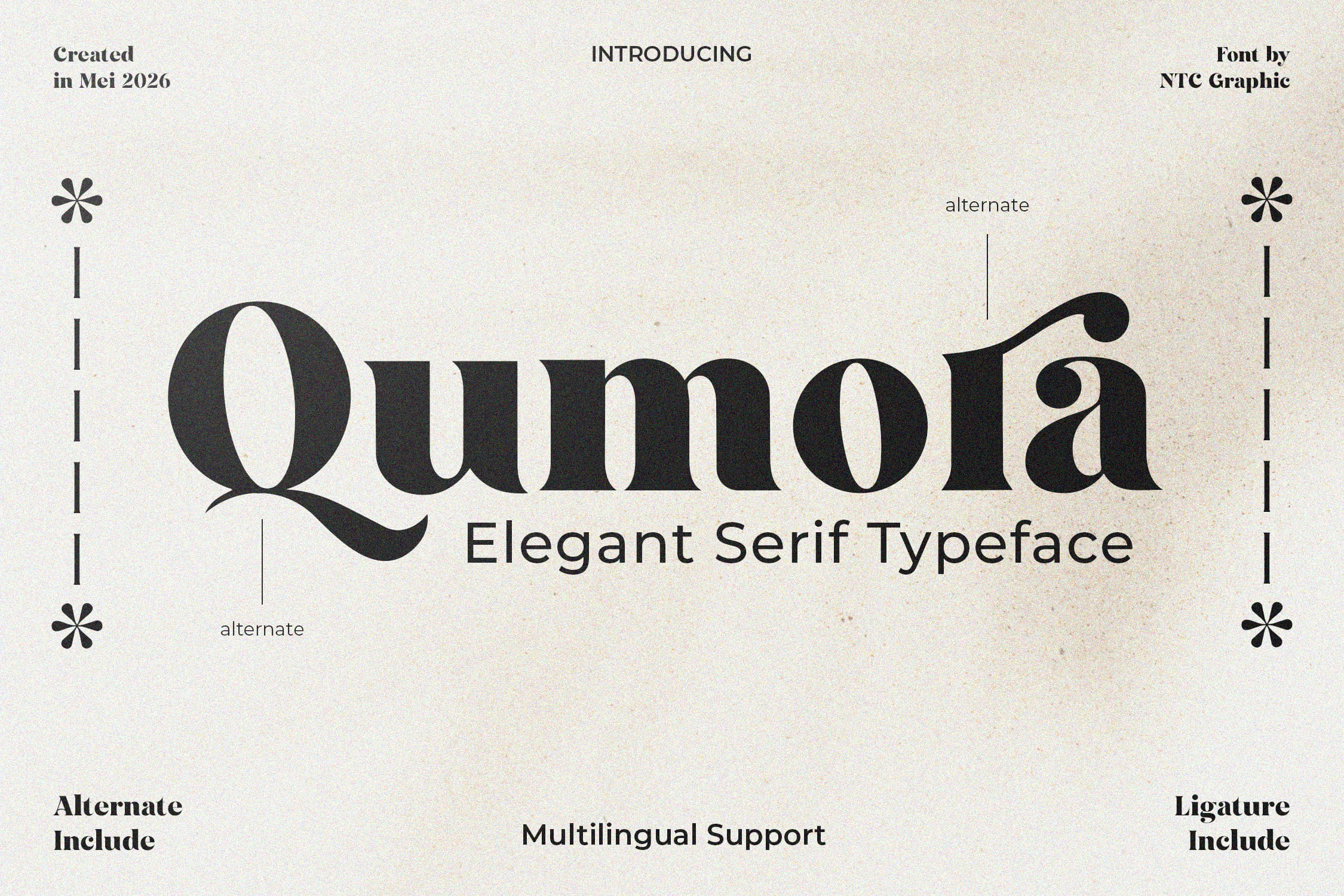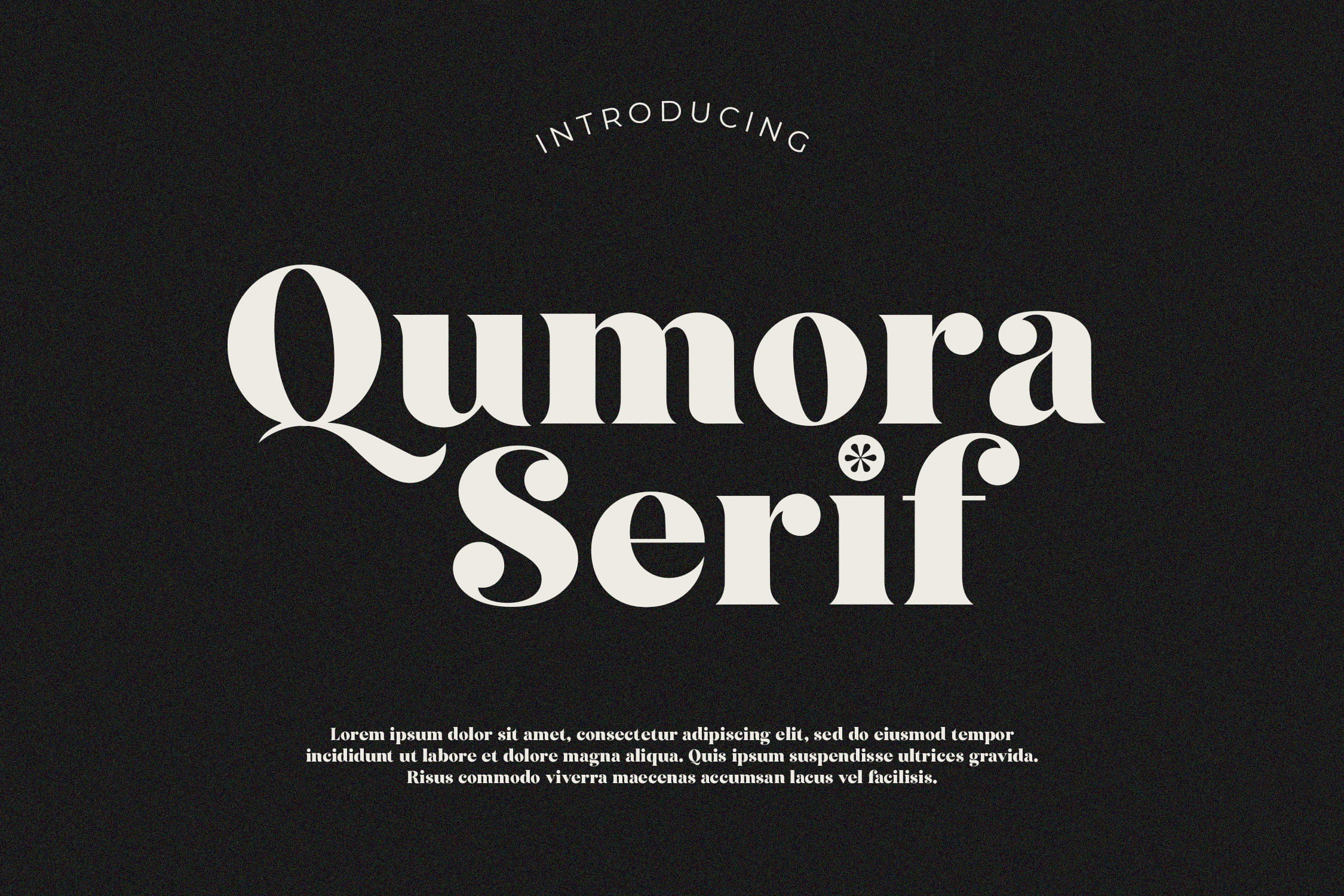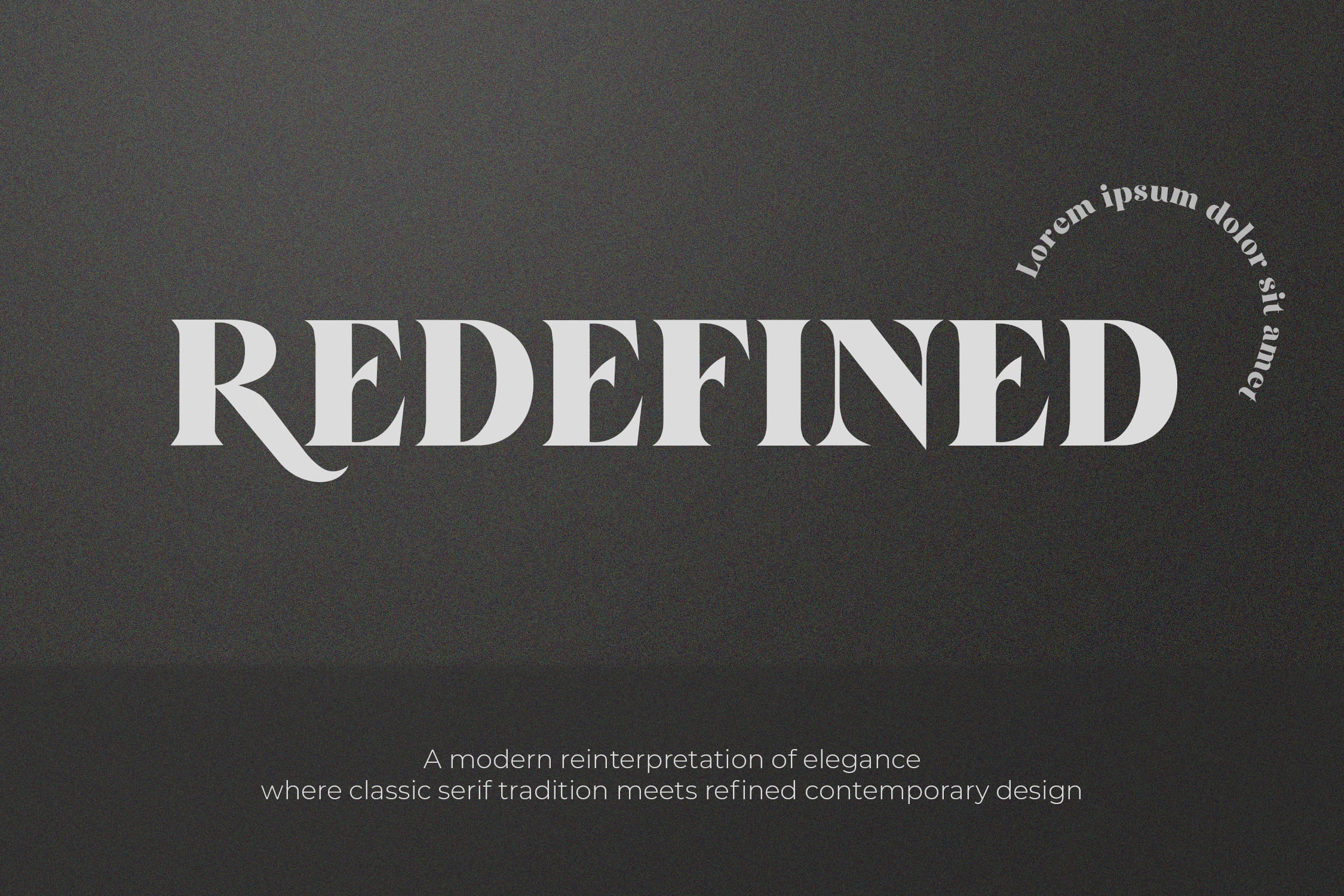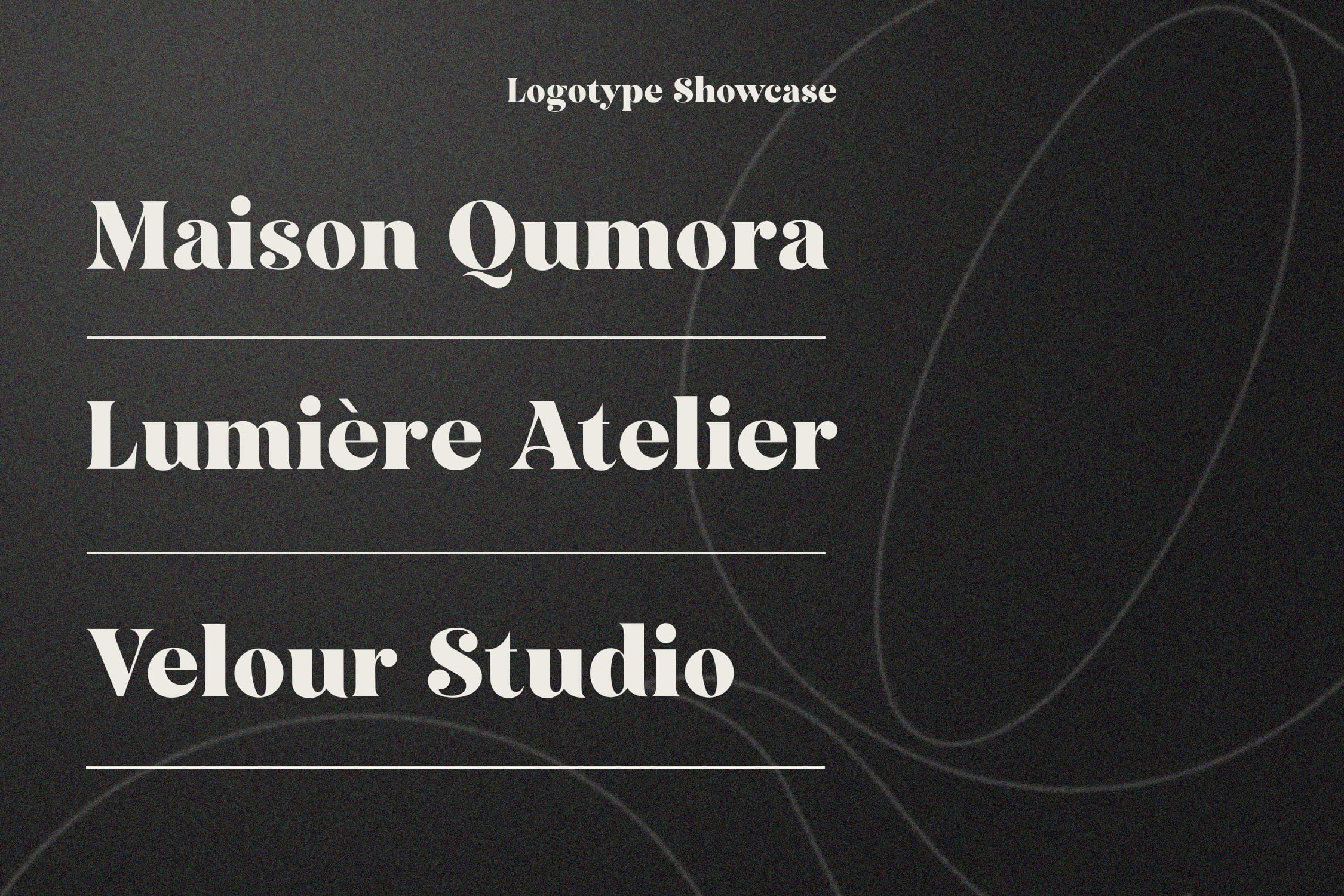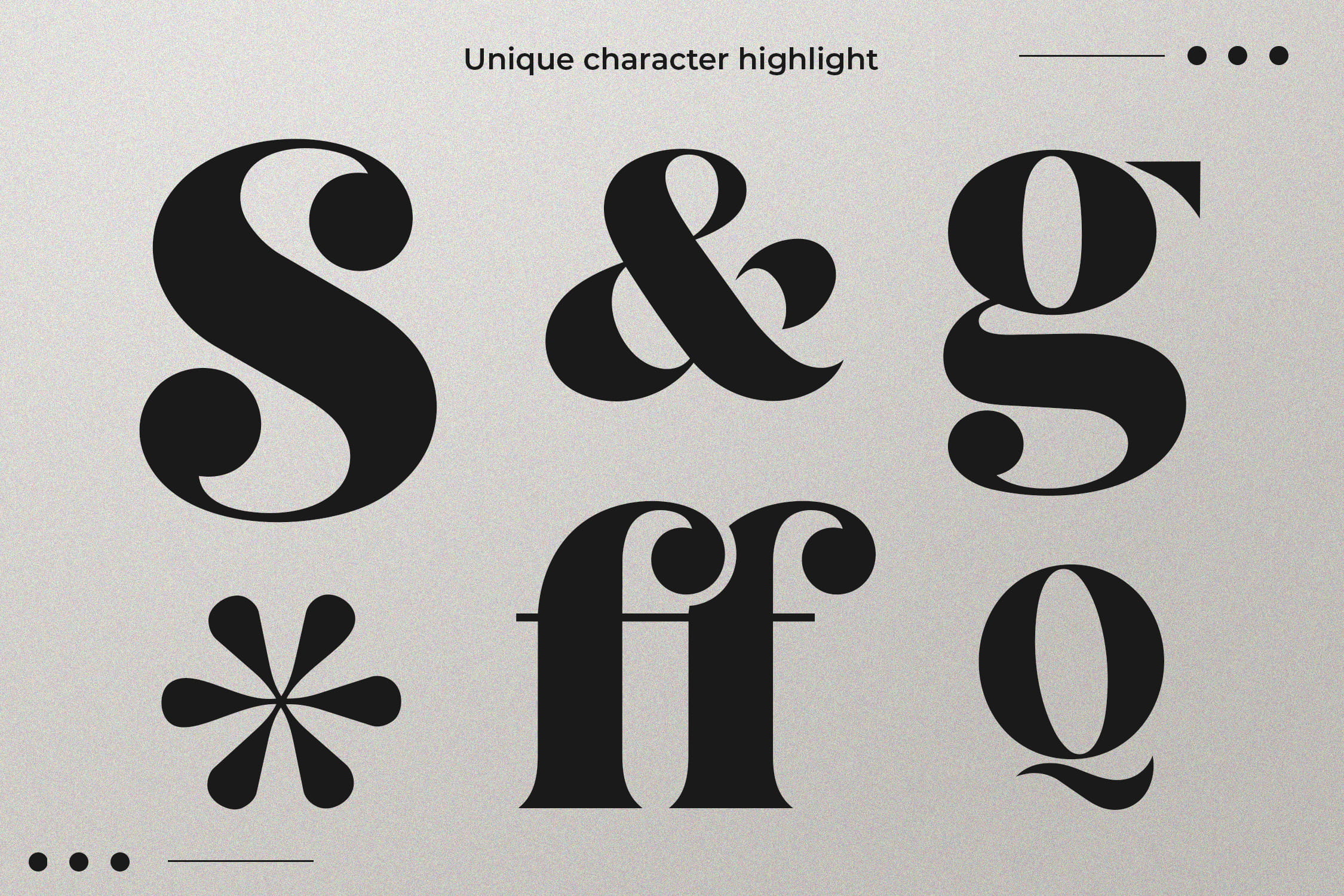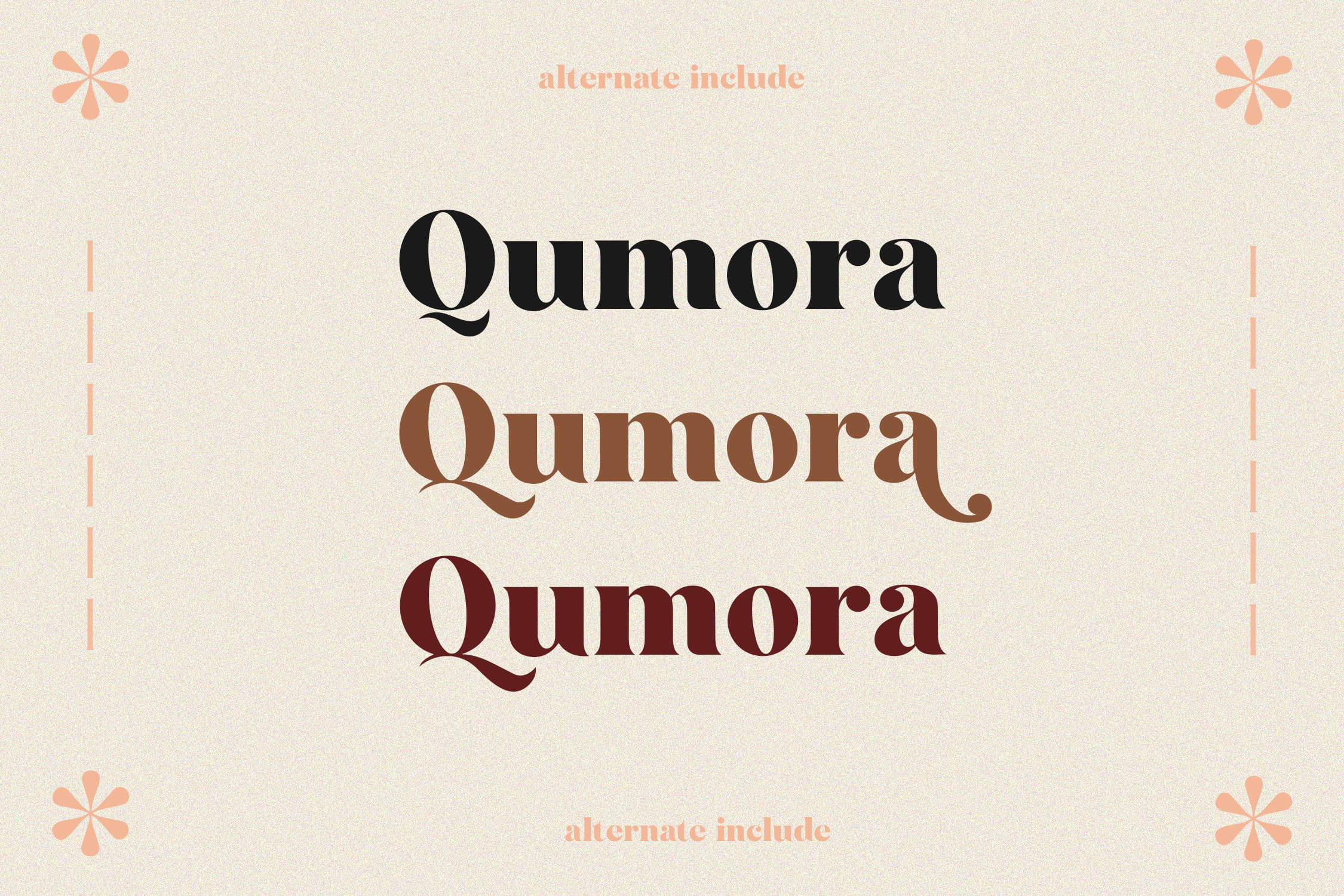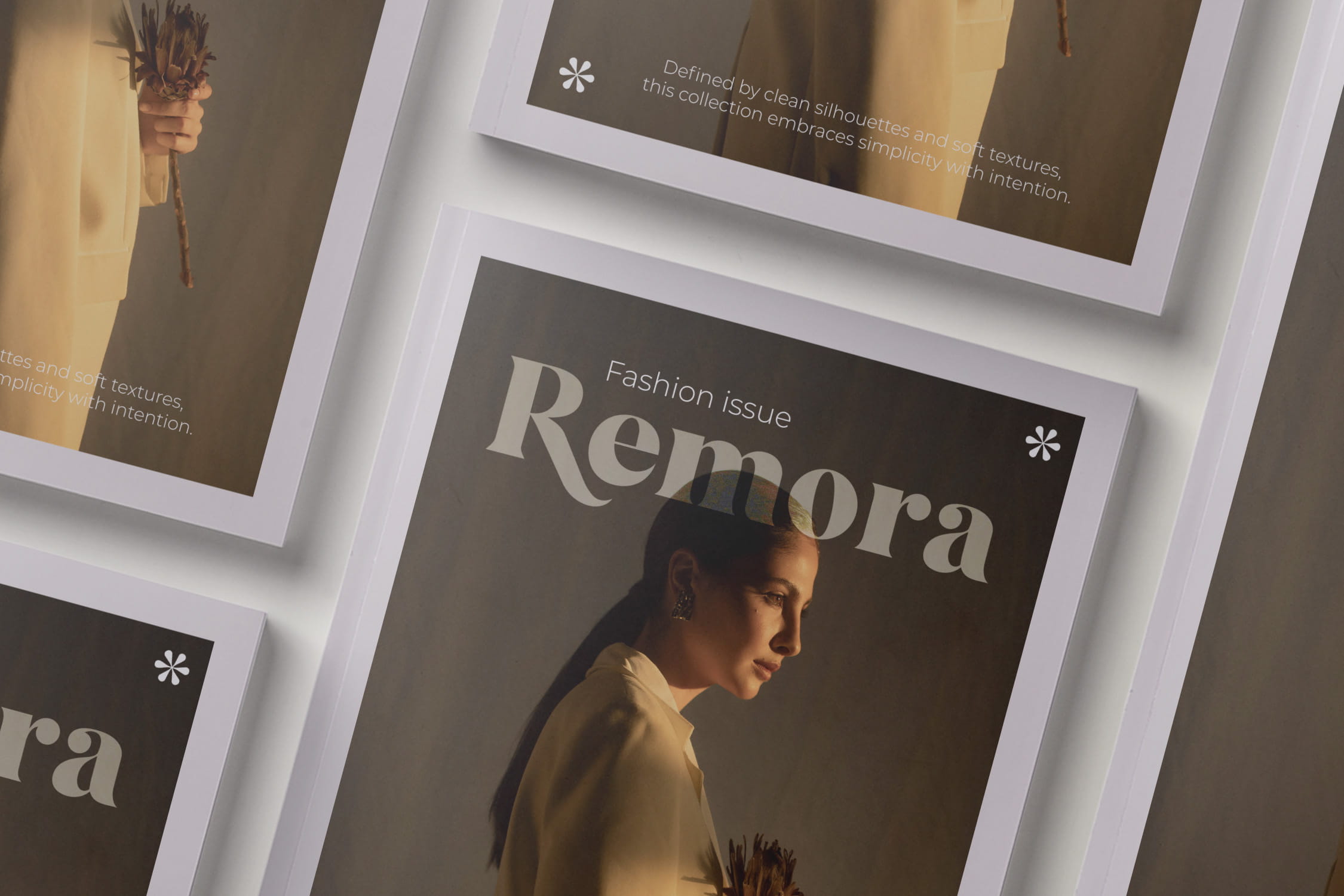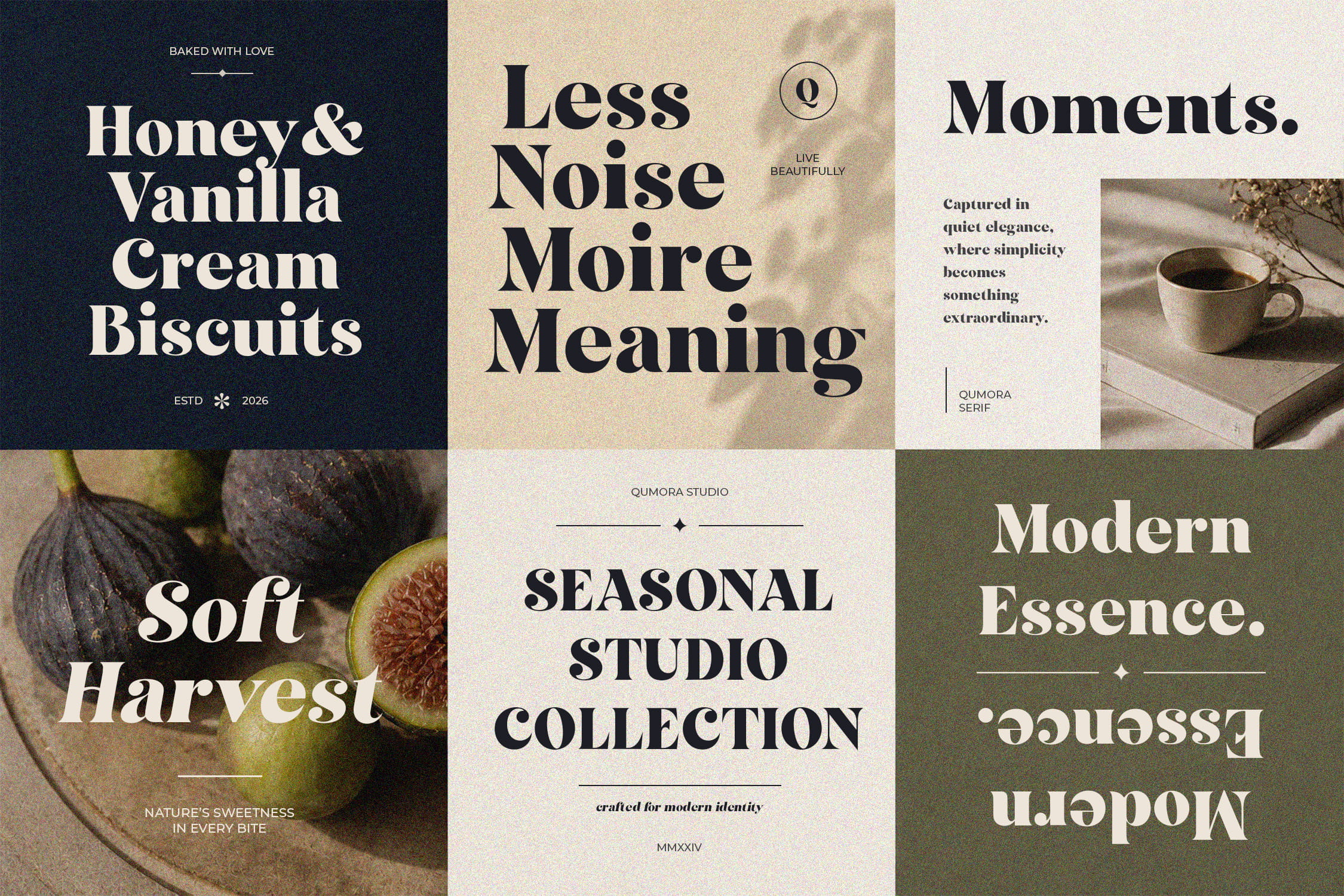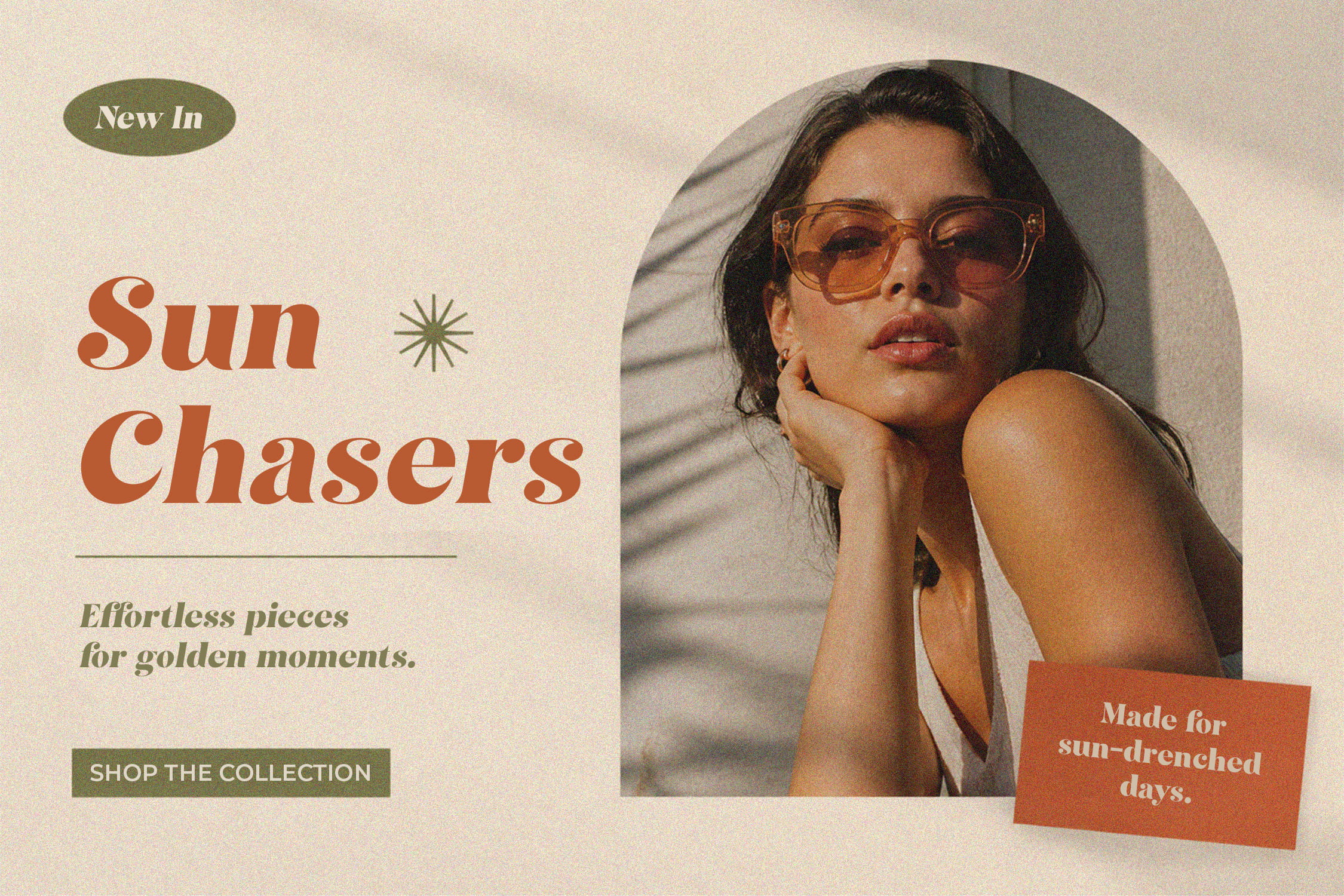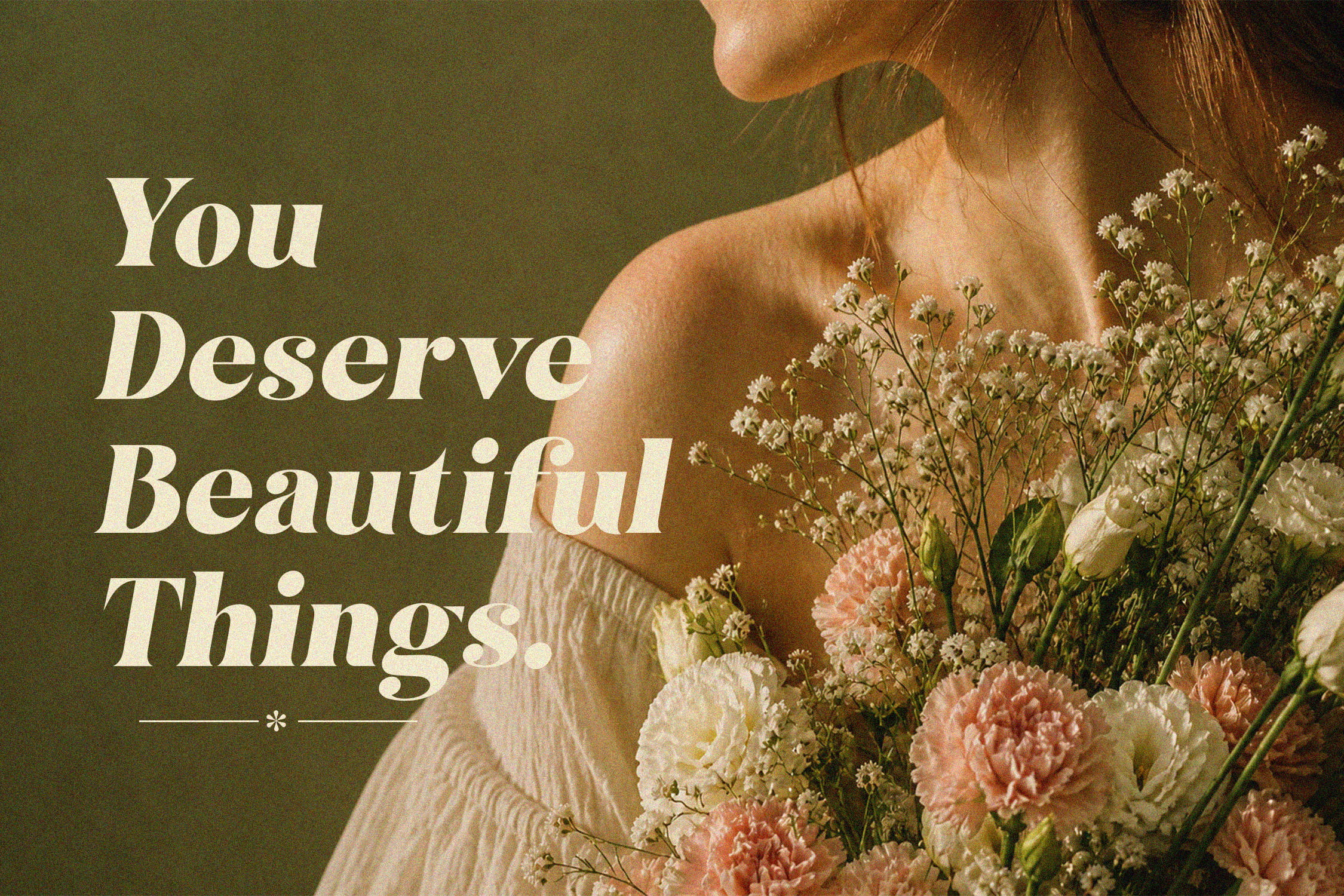
Qumora – Elegant Serif Typeface
Qumora is a modern serif typeface designed to bring a sense of elegance into everyday design.
Blending classic serif tradition with a contemporary touch, Qumora features refined curves, high-contrast strokes, and distinctive letterforms that create a graceful yet strong visual presence.
Carefully crafted with real design use cases in mind, this typeface works beautifully across branding, editorial, and product-based visuals.
Perfect For
• Branding & Identity
• Logo Design
• Fashion & Beauty Projects
• Editorial Layout
• Packaging Design
• Social Media Content
Font Features
• Uppercase & Lowercase
• Ligatures
• Alternates
• Multilingual Support (Western, Central & Southeast European languages)
• Numbers & Punctuation